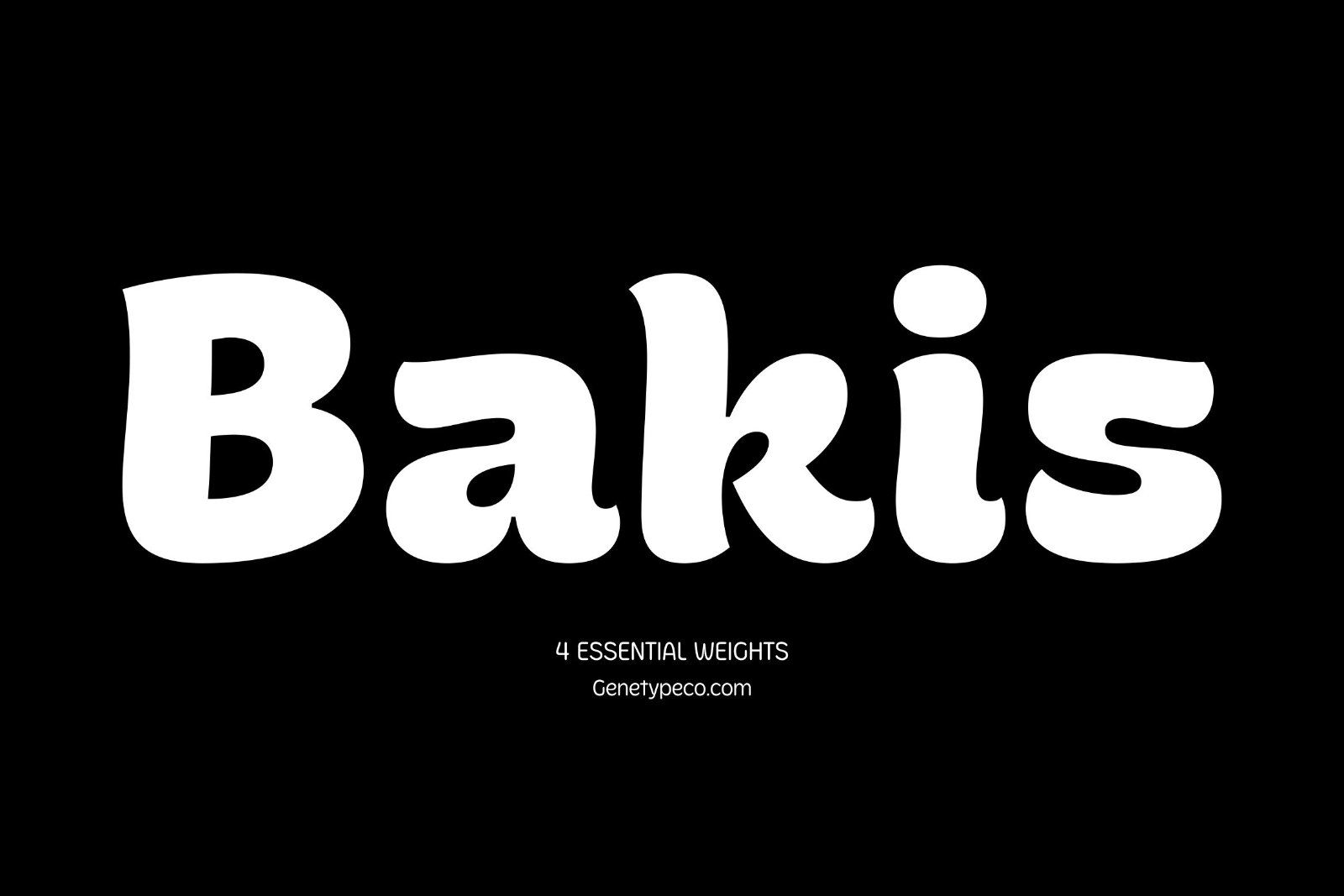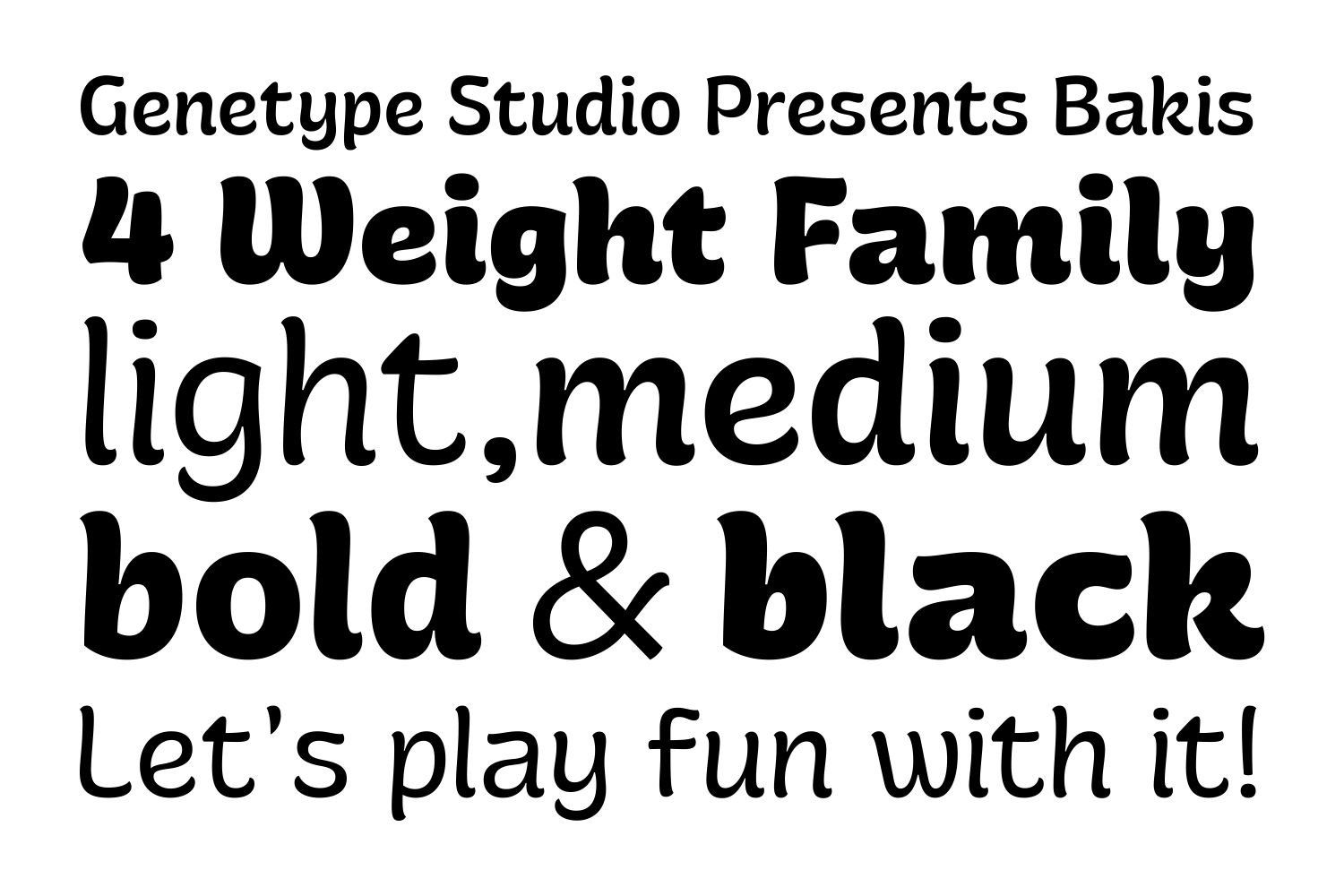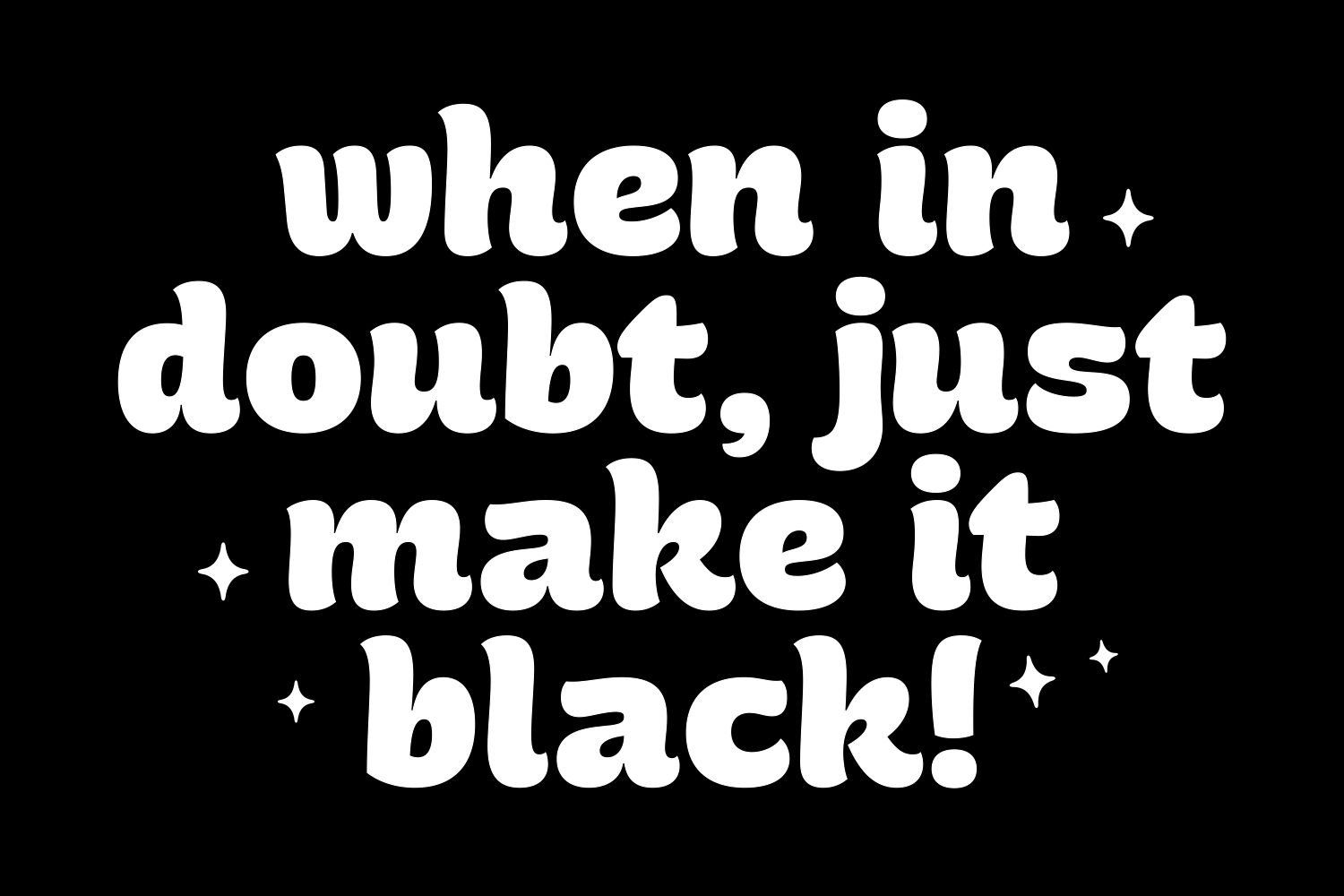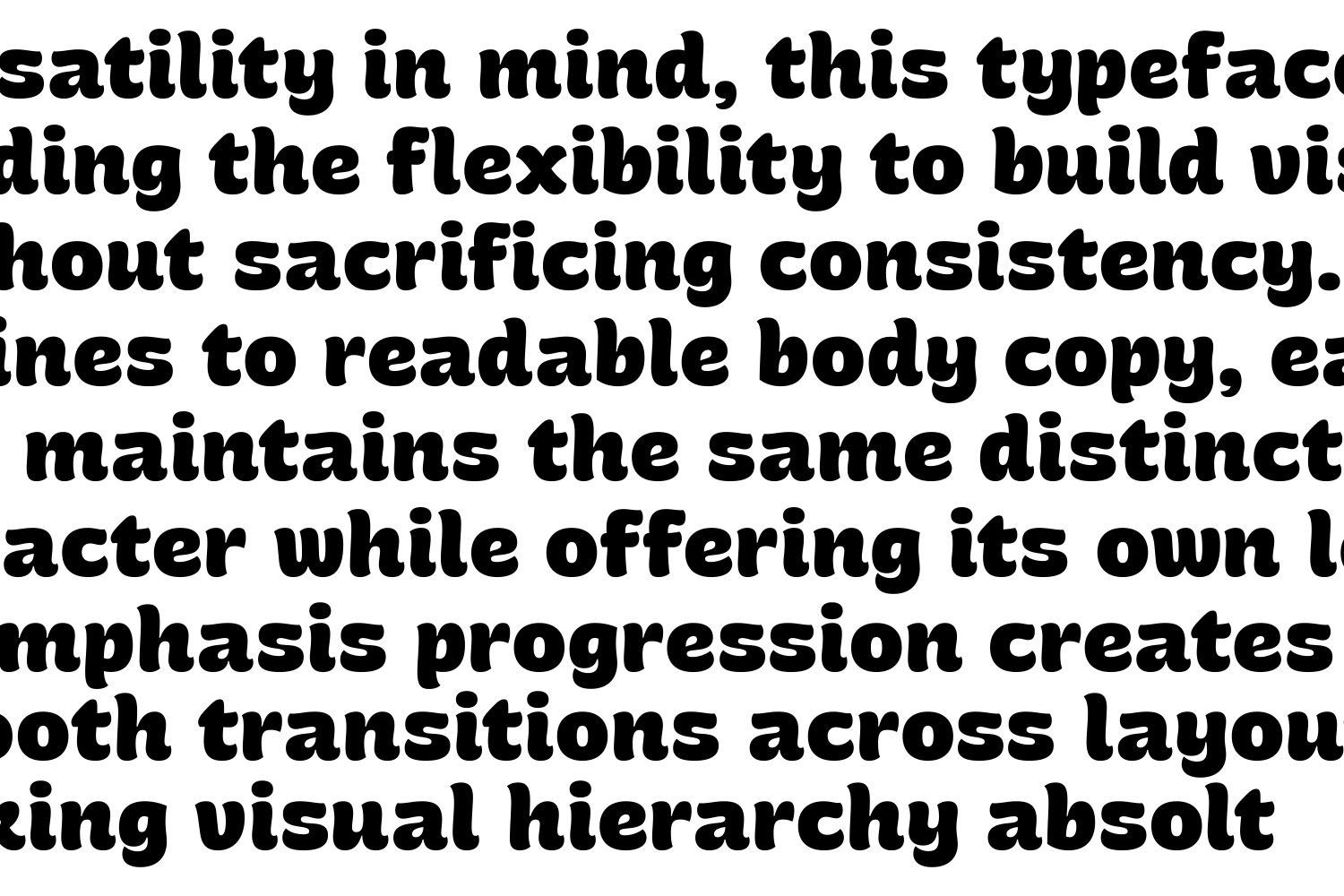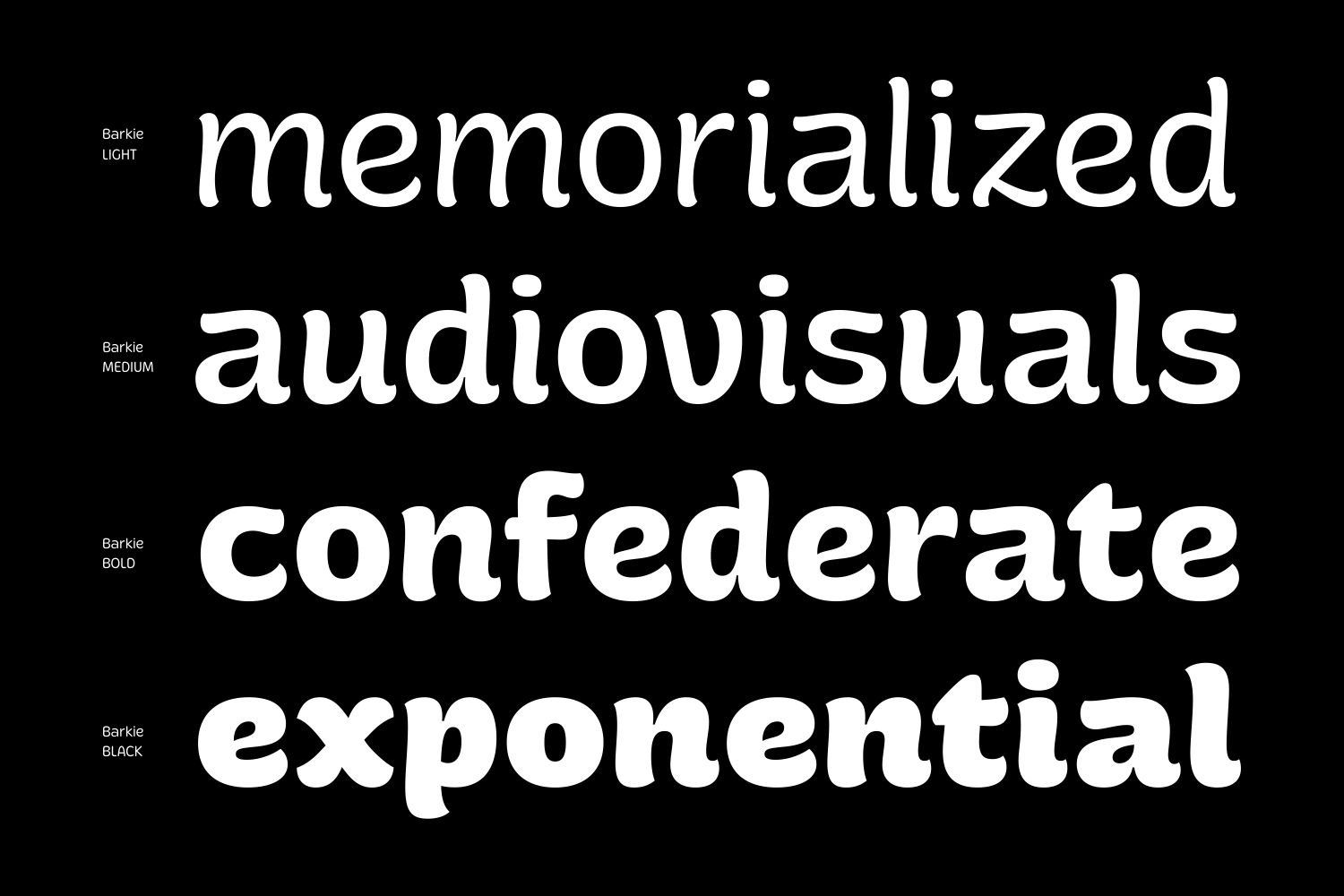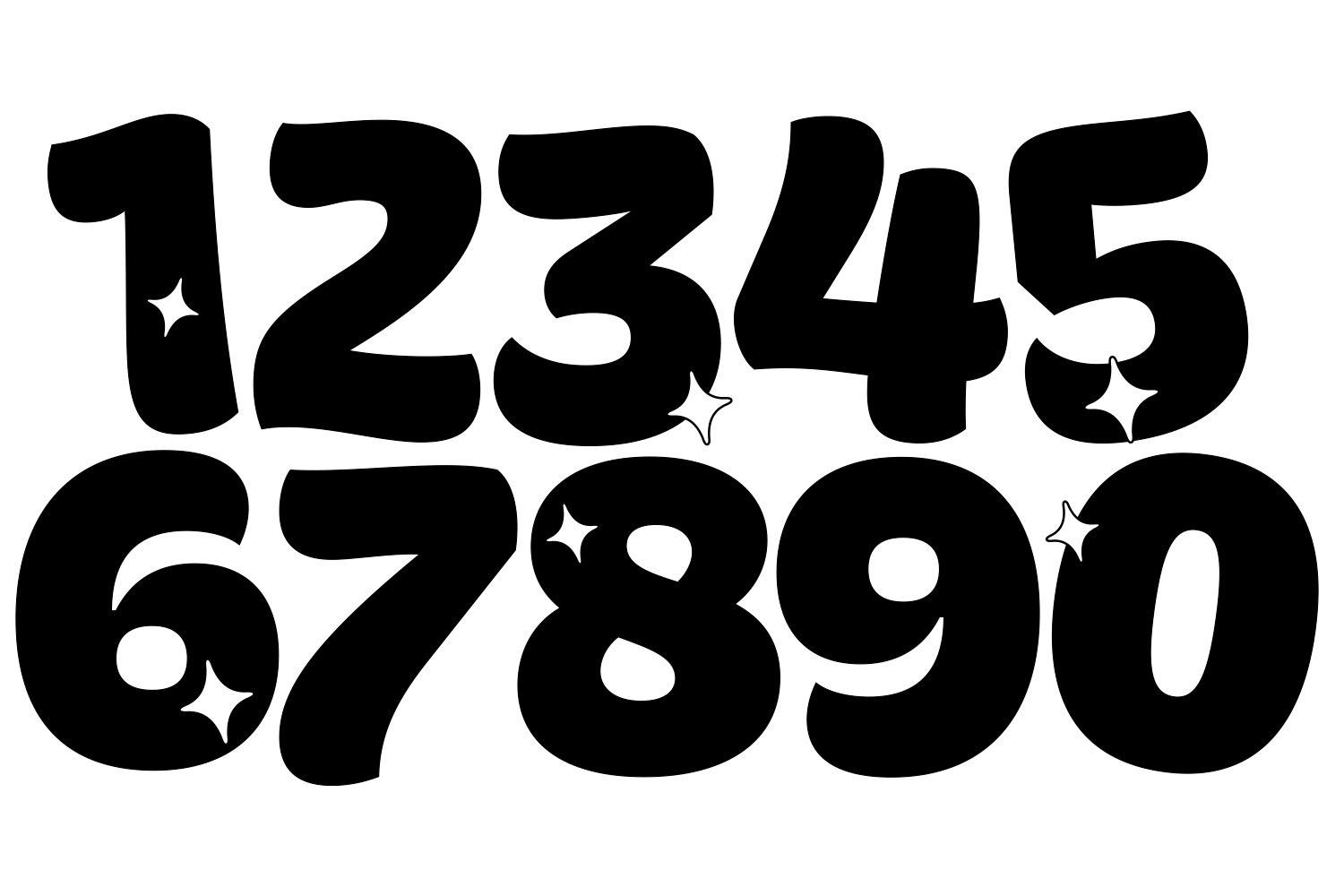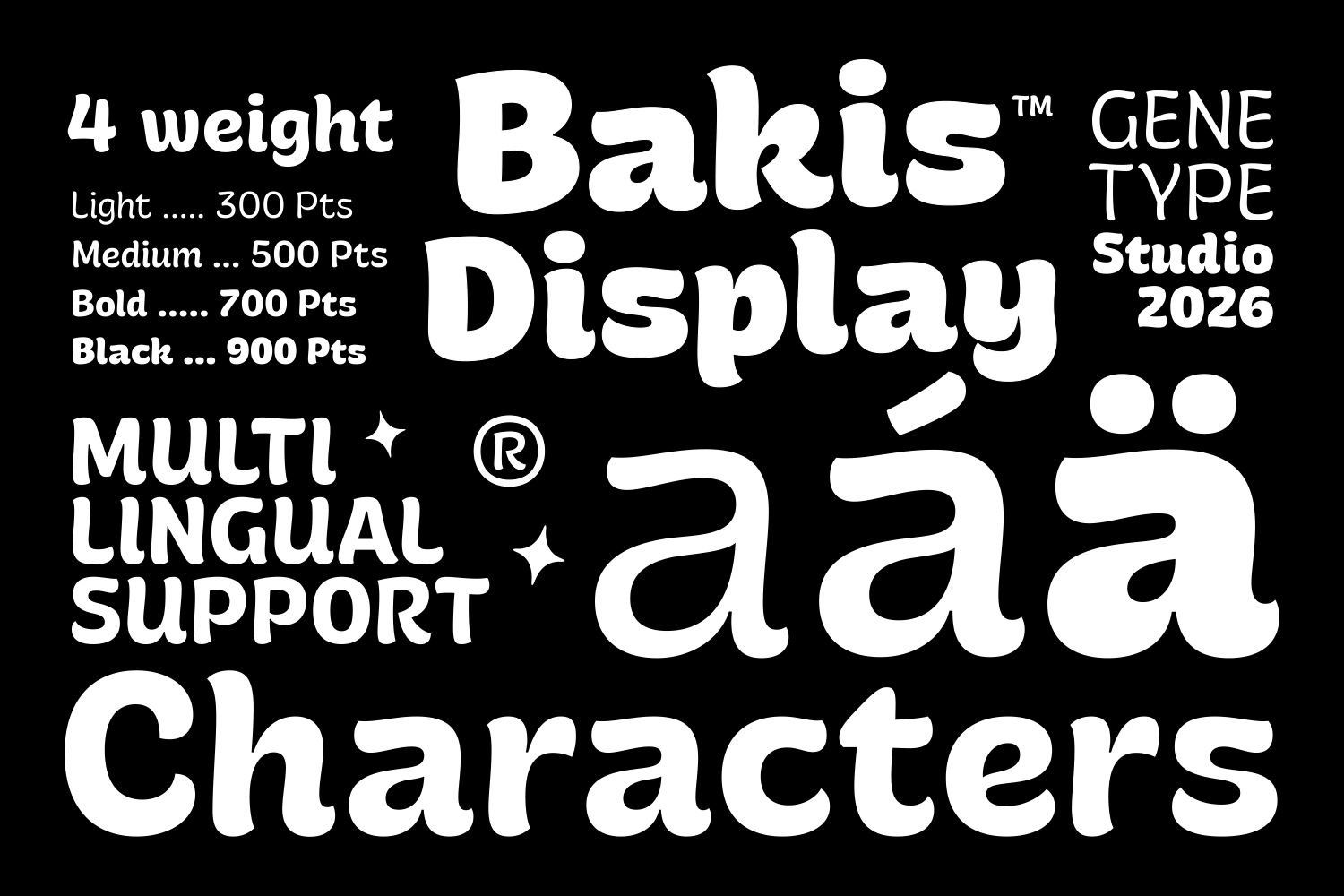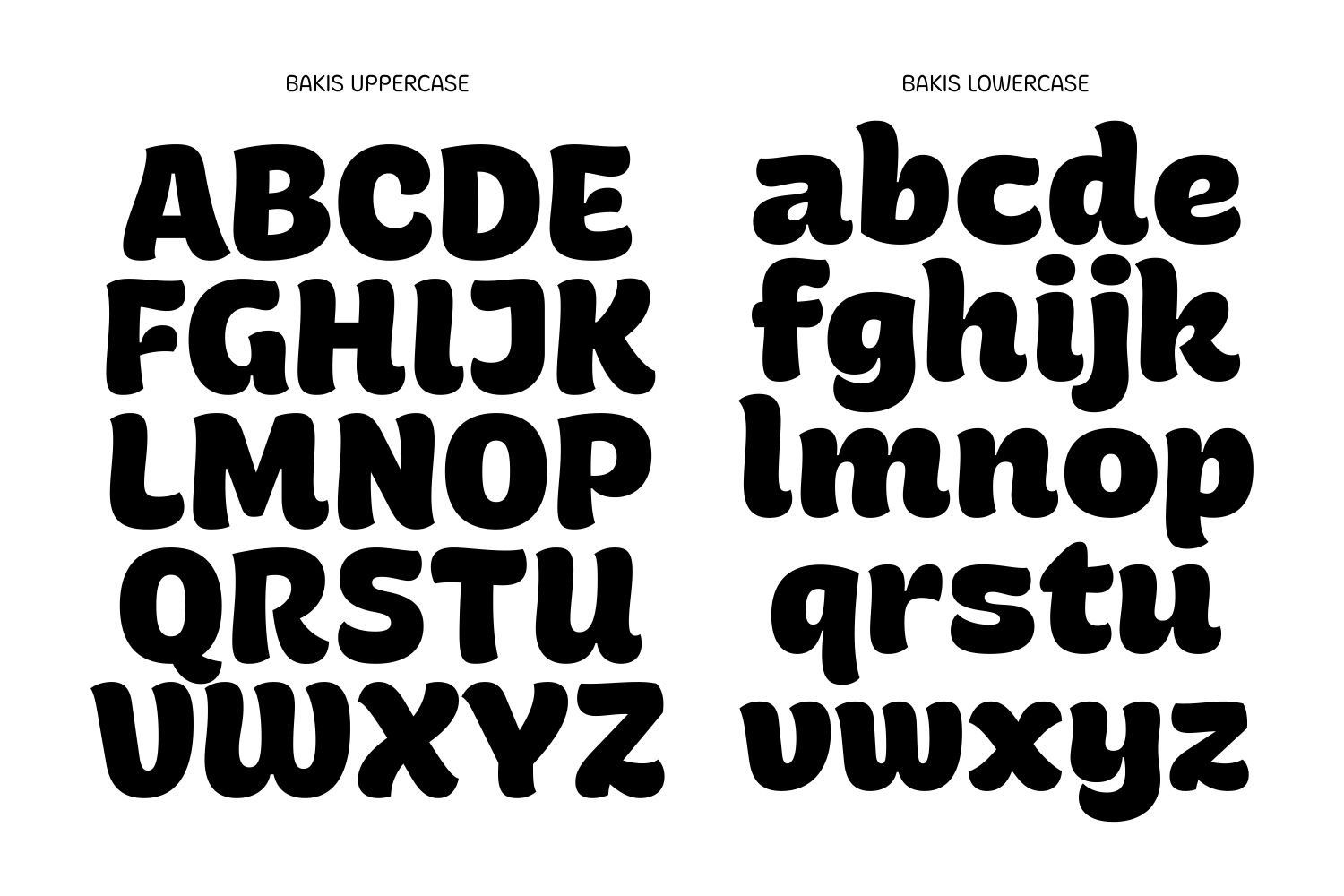
Bakis Display is a playful display sans serif that brings warmth, charm, and personality to every design.
With its soft rounded shapes and friendly letterforms, Bakis is perfect for branding, logos, packaging, food & beverage, children's products, social media, posters, headlines, and any project that needs a fun yet confident voice.
The family includes four essential weights Light, Medium, Bold, and Black, giving you the flexibility to create everything from subtle typography to bold visual statements. Bakis also includes uppercase and lowercase letters, numbers, punctuation, extensive multilingual support with accented characters, and comes in OTF, TTF, and WOFF formats for both print and digital use.
Whether you're designing a bakery logo, café branding, snack packaging, kids' products, merchandise, or eye-catching social media graphics, Bakis adds a playful and memorable touch that helps your work stand out.